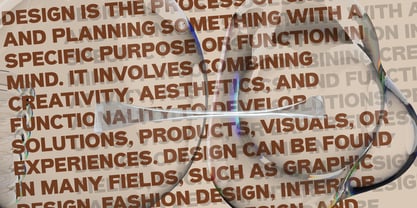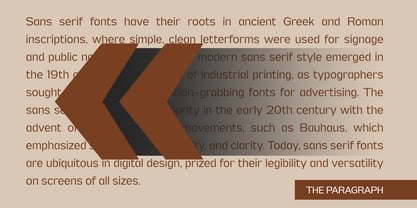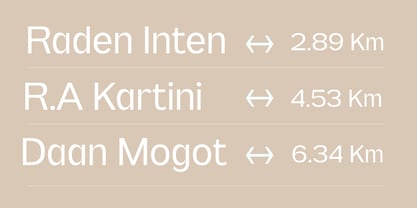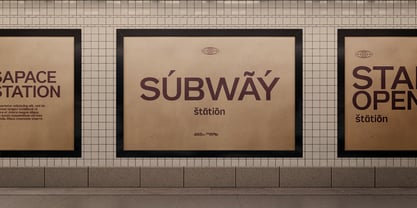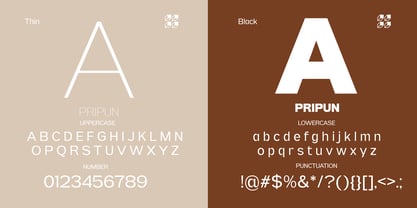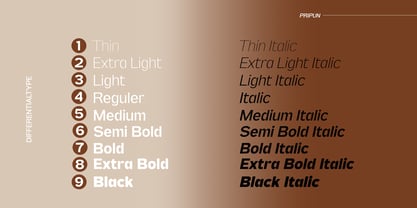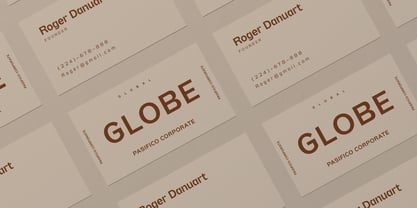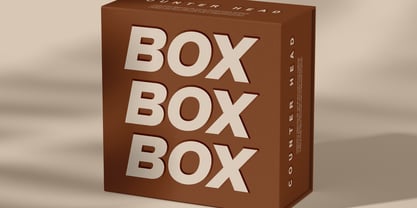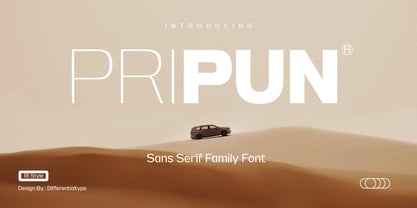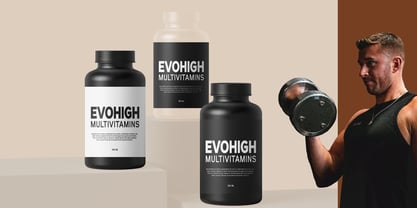
Pripun
by Differentialtype
The Pripun Font Family was designed by Sidik Sidik and published by Differentialtype. Pripun contains 18 styles and family package options.
Unlock the power of precision typography with Pripun, a versatile sans serif font family that redefines clarity and style. With 18 meticulously crafted styles, ranging from Thin to Black, and complemented by elegant Italic variants, Pripun is the ultimate design solution for brands seeking sophistication, headlines demanding impact, and texts requiring readability. Whether you're crafting a brand identity, penning a news headline, or designing a digital interface, Pripun's precision-engineered letterforms will elevate your design to new heights, ensuring your message is conveyed with crystal clarity and maximum impact.